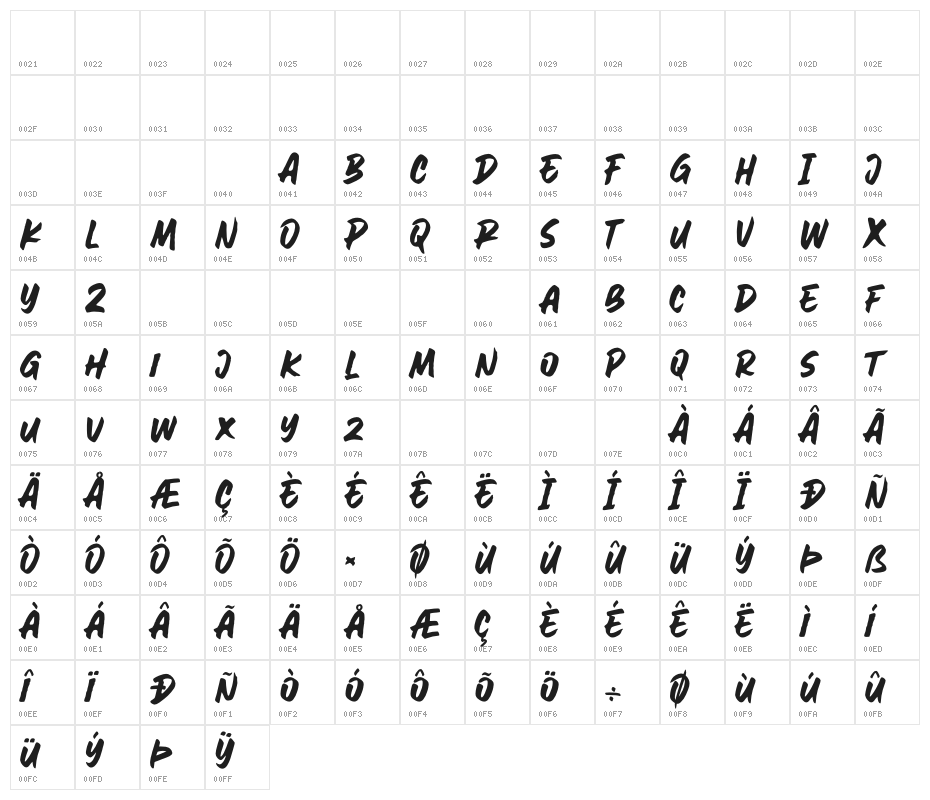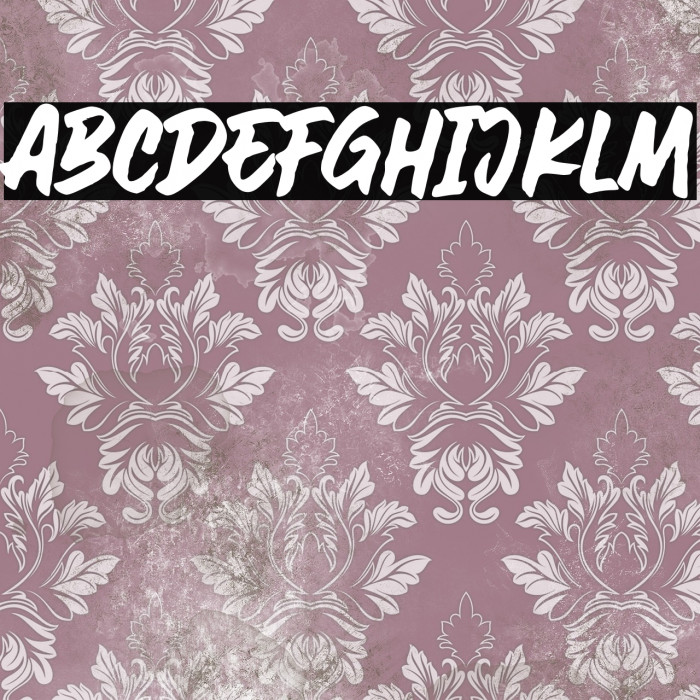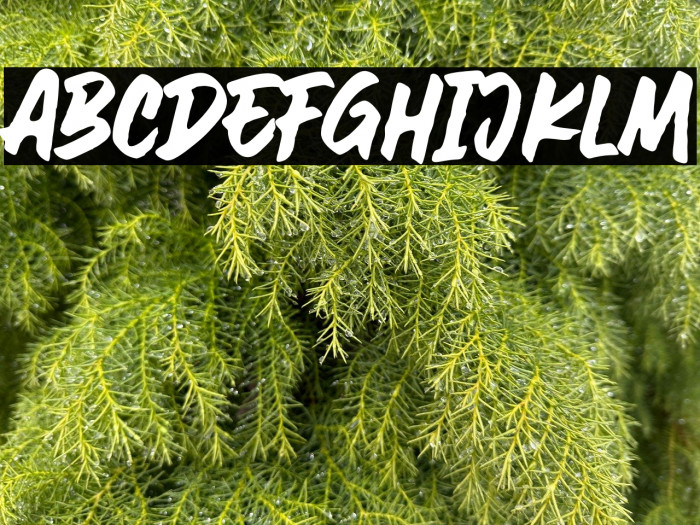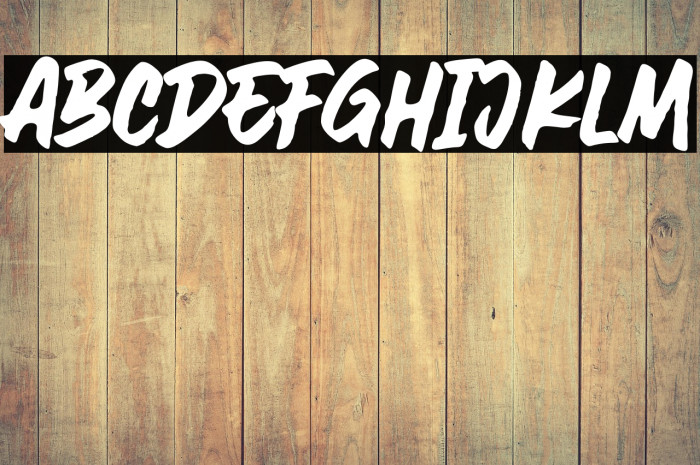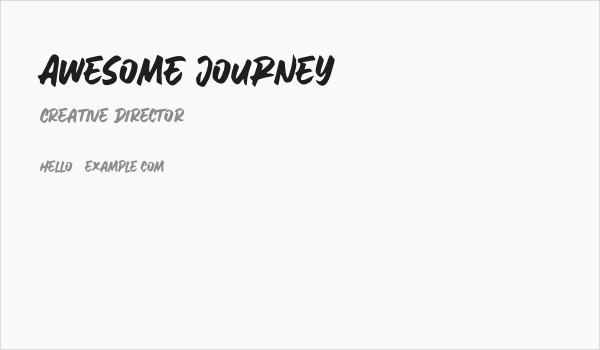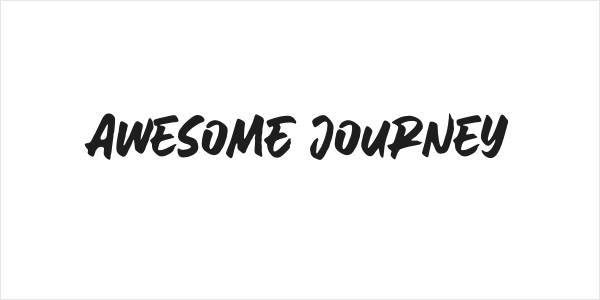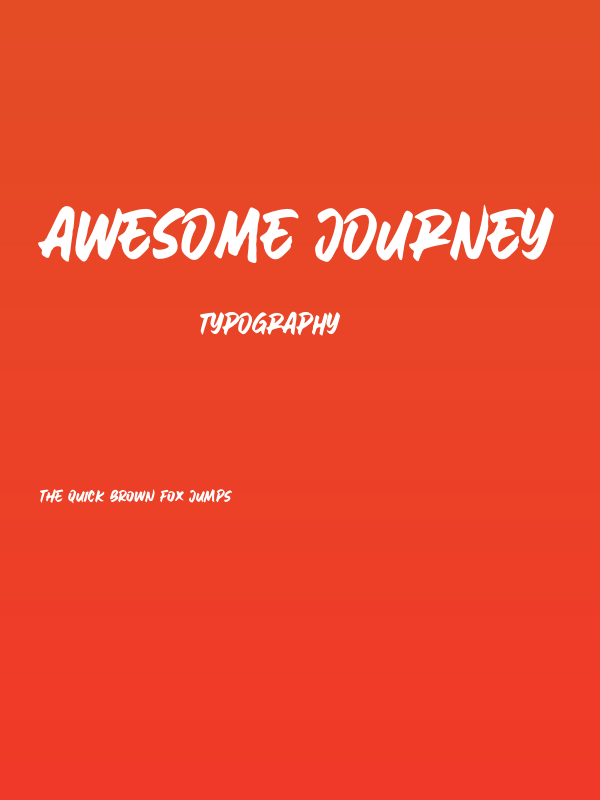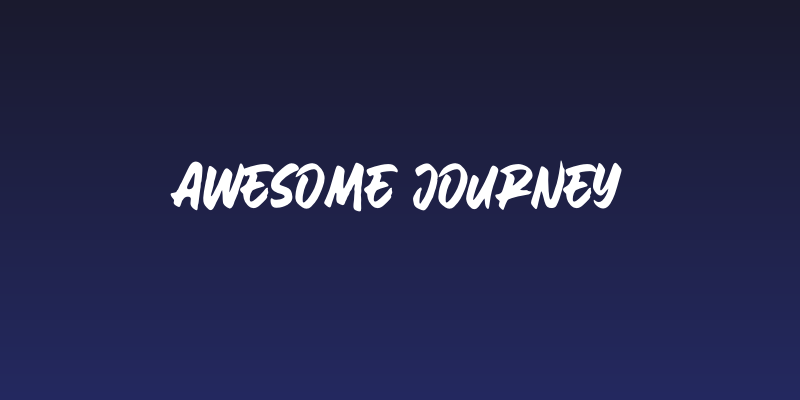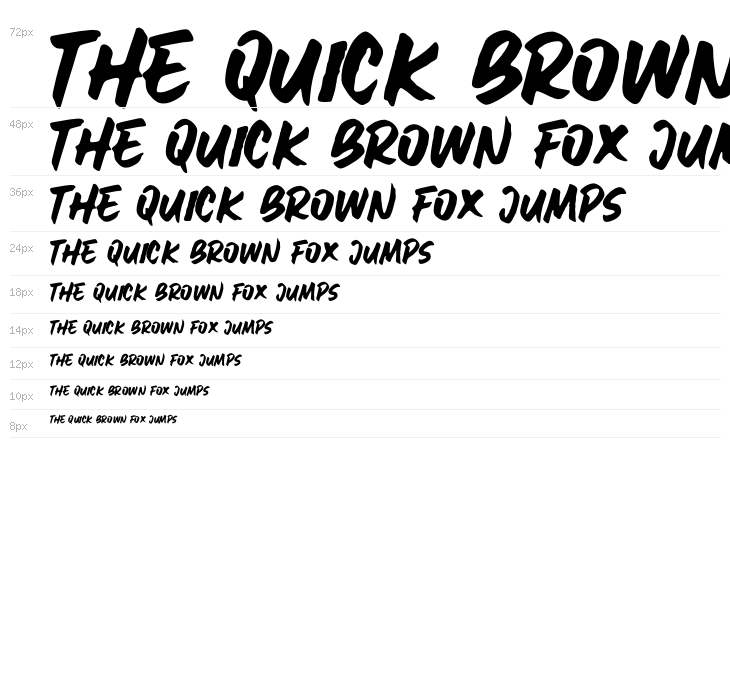
AweSomE JouRneY Font
AweSomE JouRneY Description
This font features a bold and dynamic script style with a strong presence. The letters are crafted with a brush-like appearance, giving them a hand-drawn, artistic feel. The strokes are thick and consistent, providing a sense of energy and movement. Each character is slightly slanted, enhancing the fluidity and casual elegance of the design. The uppercase and lowercase letters maintain a cohesive look, with smooth curves and sharp edges that add to the font's expressive nature. This style is perfect for projects that require a personal touch or a creative flair.
| Proposed Projects | Ideal for branding, posters, invitations, and any design needing a personal, artistic touch. |